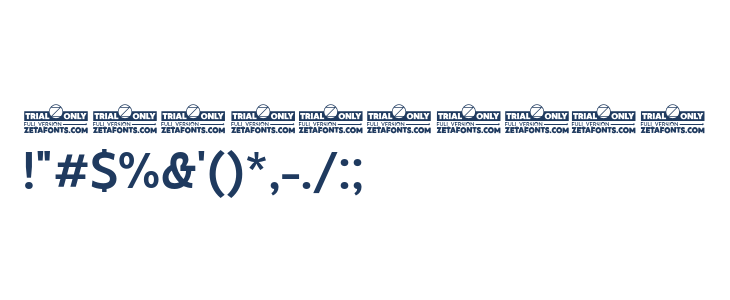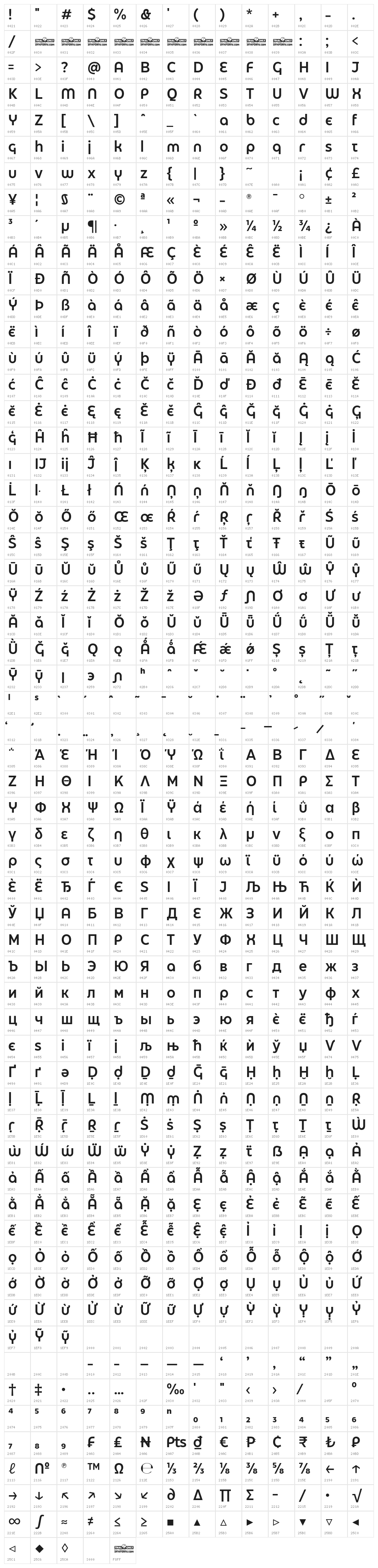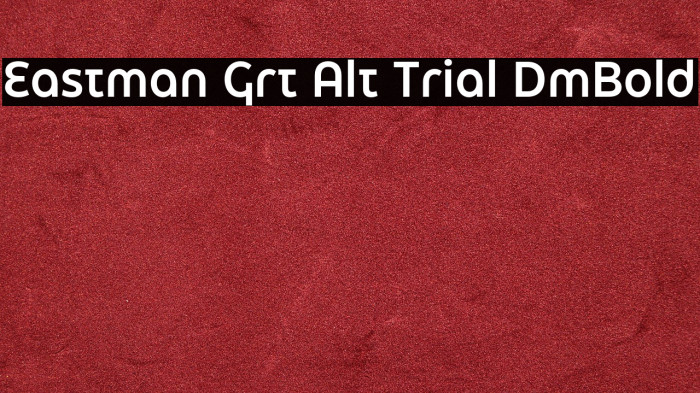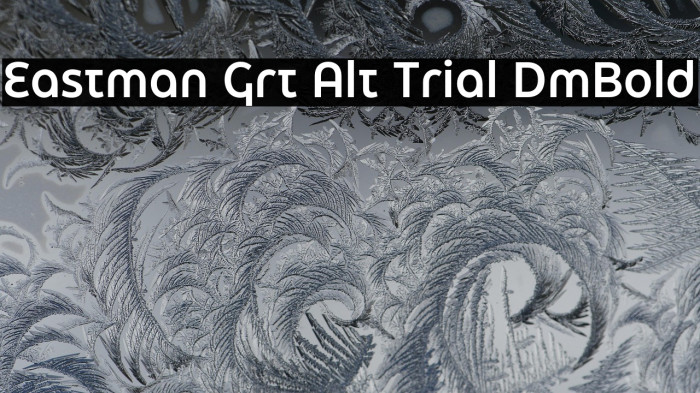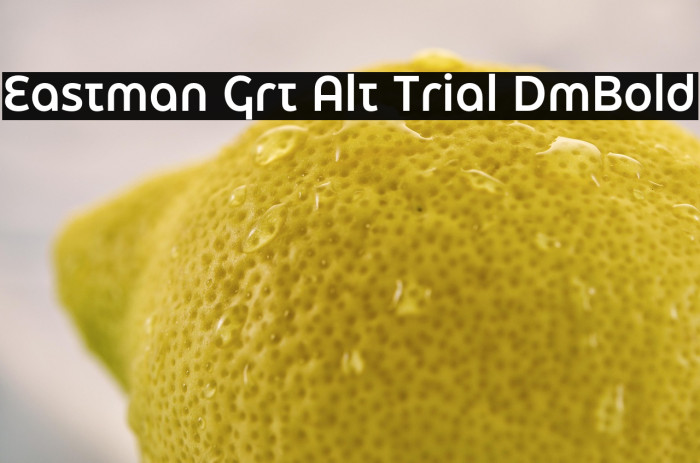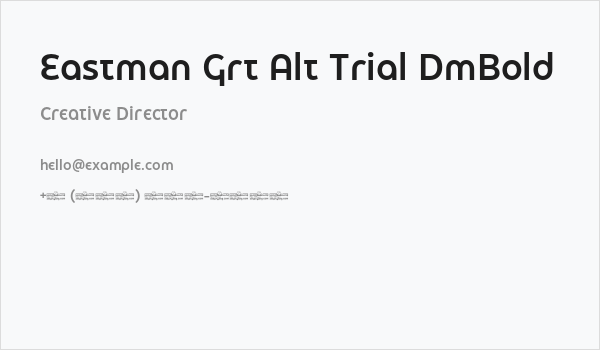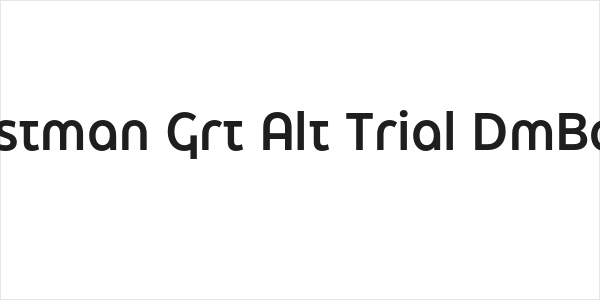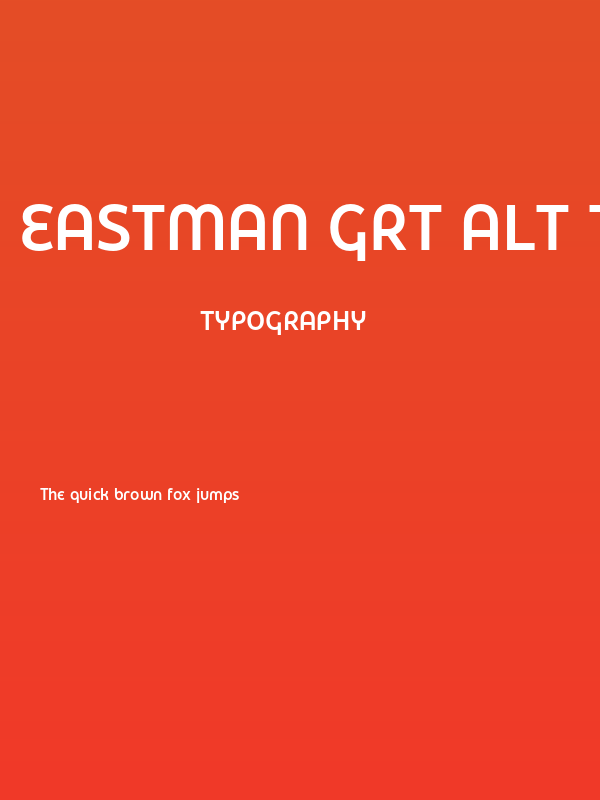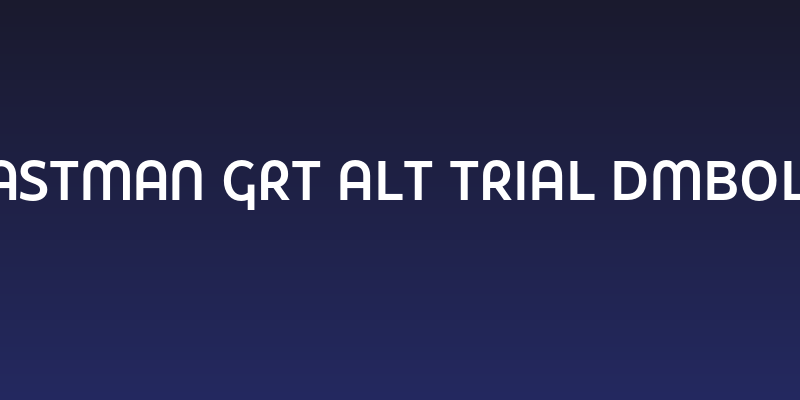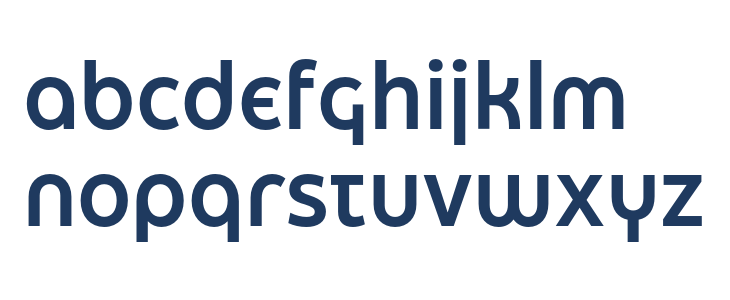
Eastman Grt Alt Trial DmBold Font
Eastman Grt Alt Trial DmBold Description
This font features a modern, geometric style with clean lines and a bold presence. The characters are well-balanced, with a uniform stroke width that gives it a cohesive look. The uppercase letters are slightly rounded, adding a touch of softness to the otherwise strong and structured appearance. The lowercase letters maintain the same geometric consistency, making it versatile for various design applications. The numerals and special characters are designed to match the overall aesthetic, ensuring a seamless integration into any project.